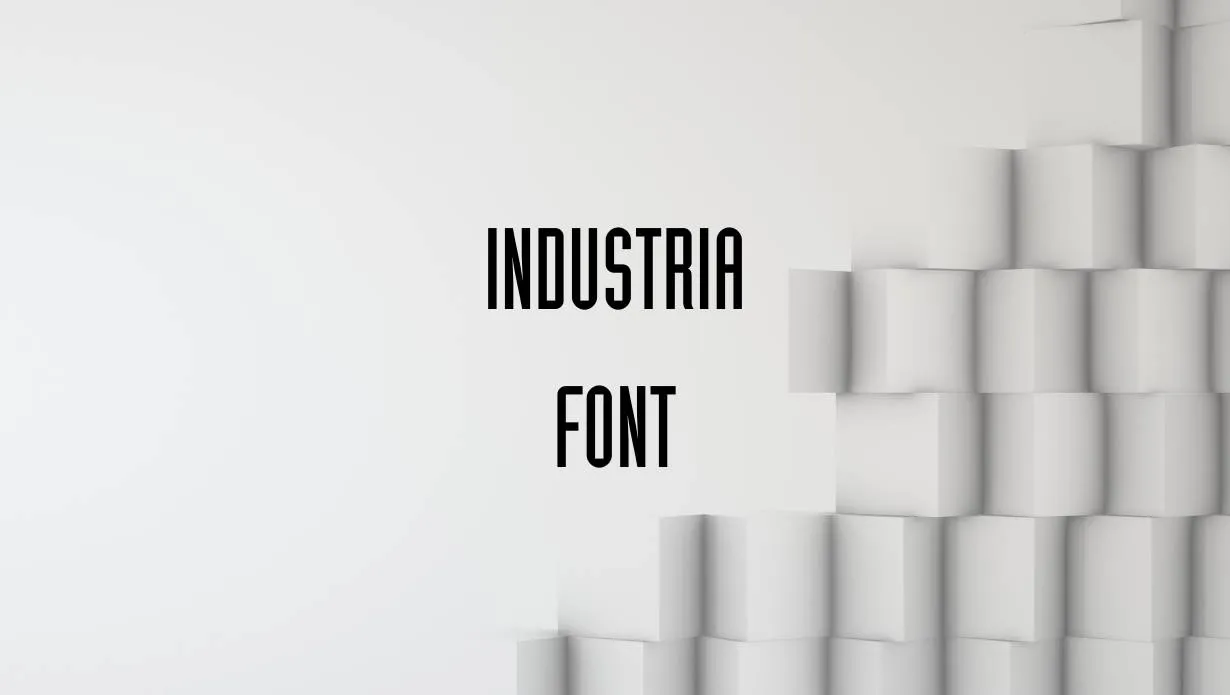
Here is a new ultra-modern typeface named Industria Font that comes in the category of the sans-serif typeface family. it was designed by a British graphic designer guru Neville Brody for The Face Magazine. He designed this font in 1984 and released it in 1989 through a notable British foundry named Linotype. This is a condensed sans serif with some essential forms and it contains straight strokes with rectangular counter spaces and rounded outer corners.
This font family comprises 4 styles including Pro Solid, Pro Inline, Std Solid, and Std Inline. Its solid version is very cool and strong but the Inline version of this typeface gives vibes and contrast to designs. Its alternative has more impressive lowercase t and g. This font family has supporting many international languages including Latin and Cyrillic alphabets.
It has more than 200 unique glyphs and 281 clean and soft characters including uppercase, lowercase, basic numbers, general punctuations, symbols, and updated icons, and many special characters too. So, this is a complete font for your huge list of designs.
Usage of Industria Font
Due to its clean and rounded shape, it is amazing font for your text design such as headlines and titling. Besides, you can also make astonishing quotes, presentations, product titling with the help of this typeface. Students can also bring beautifulness to their notes or assignments with the use of this typeface. You can also use it for creating your amazing store/shop names, post descriptions, printing, publishing, and even for documentation purposes.
This typeface is a perfect font for your modern designs because of its elegant look. You can make many interesting designs such as Logos, Posters, Business cards, Gift cards, Book Covers, Banners, Brochure layouts, Website and Blog templates, Emblems, Signages, Homecare designs, Art designs as well as Branding projects, social Media Posts, Magazines and Newspapers, Powerpoint Presentations and so on.
Industria Font Family View
Industria Font
Industria Font Family (Includes 4 Typeface)
• Industria Pro Solid
• Industria Pro Inline
• Industria Std Solid
• Industria Std Inline
What kind of font is Industria Font?
This is a clean, modern, and soft sans-serif typeface family that comes in 4 versions including Pro  Solid, Pro Inline, Std Solid, and Std Inline. It was originally designed in 1989 by Neville Brody for The Face Magazine and released later in 1989 through Linotype.
What is the closest font to the Industria Font?
There are many similar fonts to this typeface such as Letraset Crillee Font, Pompeia Fon, etc but Teknik Font and Mekanik Font are the most similar fonts to this typeface.